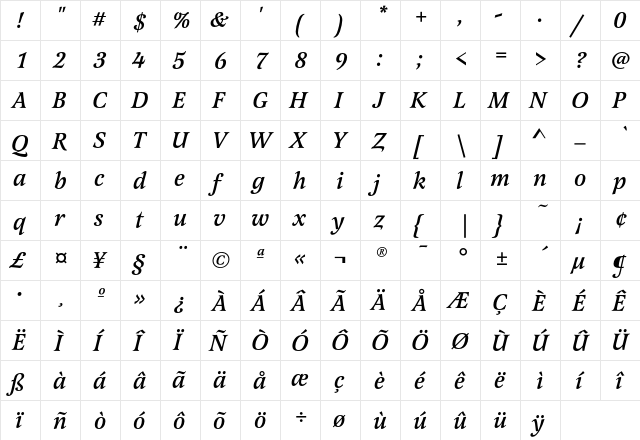
LatienneEF-MediumItalic Regular
Design Context for LatienneEF-MediumItalic Typeface
LatienneEF-MediumItalic takes a measured approach to typography — its balanced proportions and neutral character make it a reliable workhorse for both digital and print work. The dynamic lean of this cut emphasises speed and emphasis in any layout.